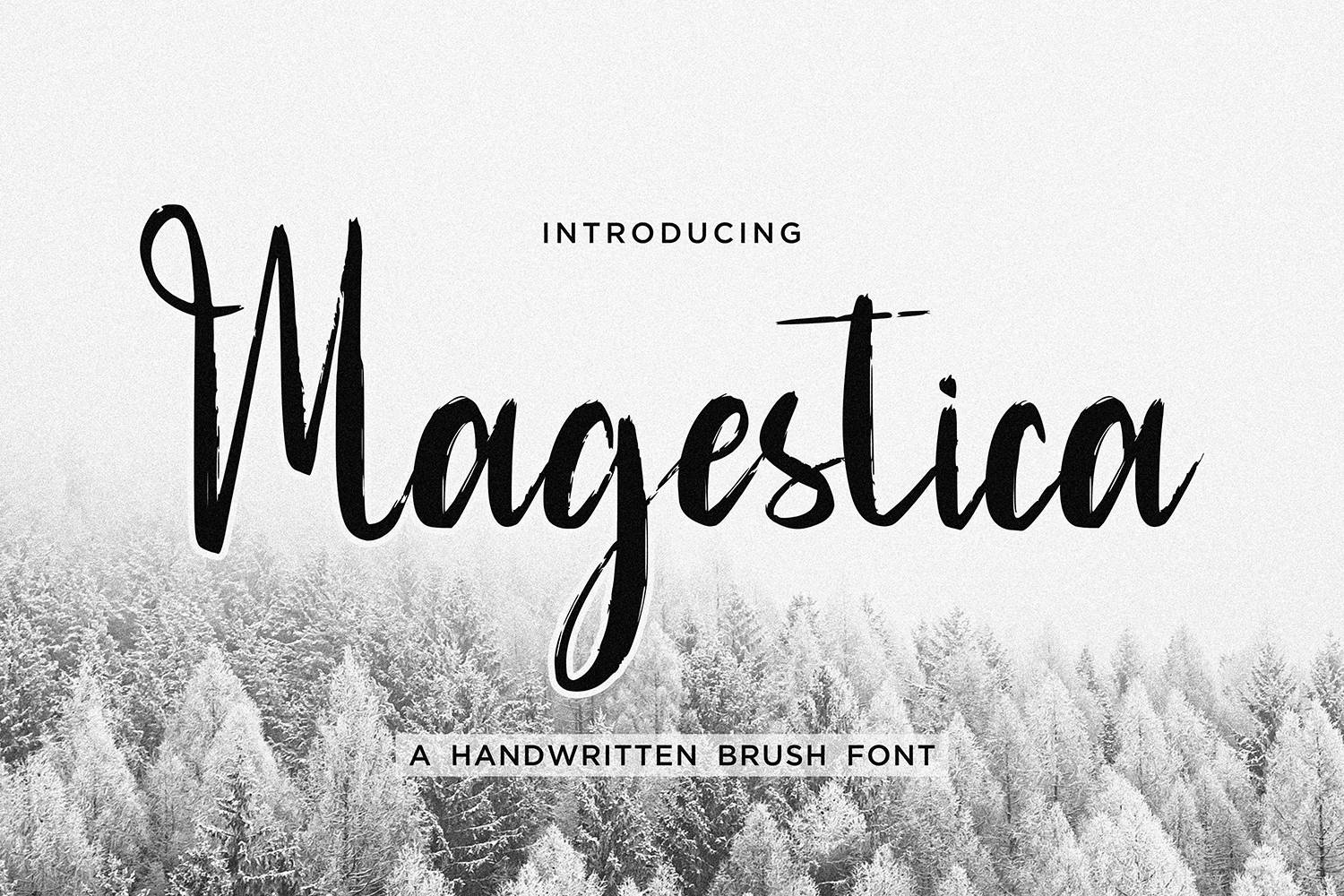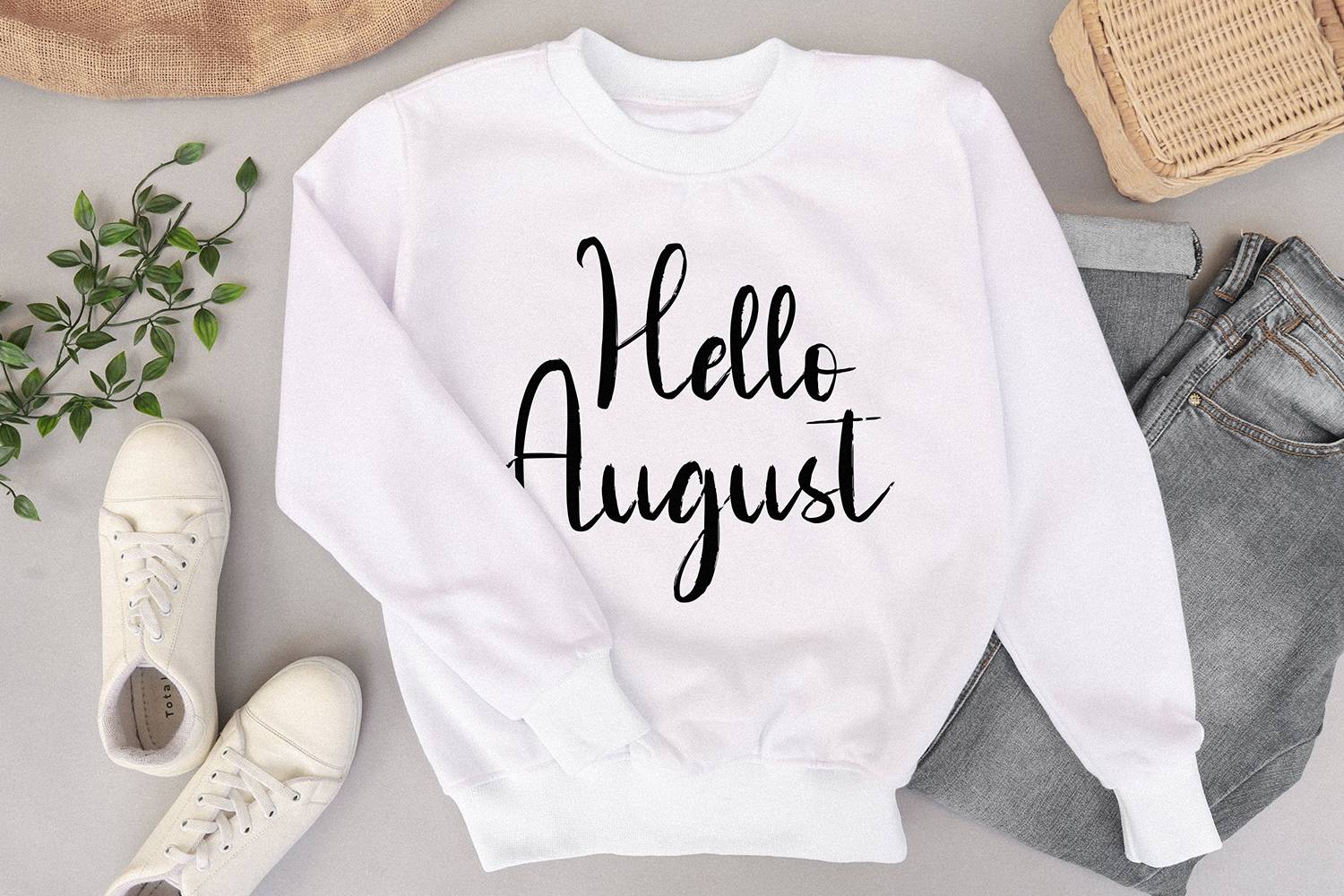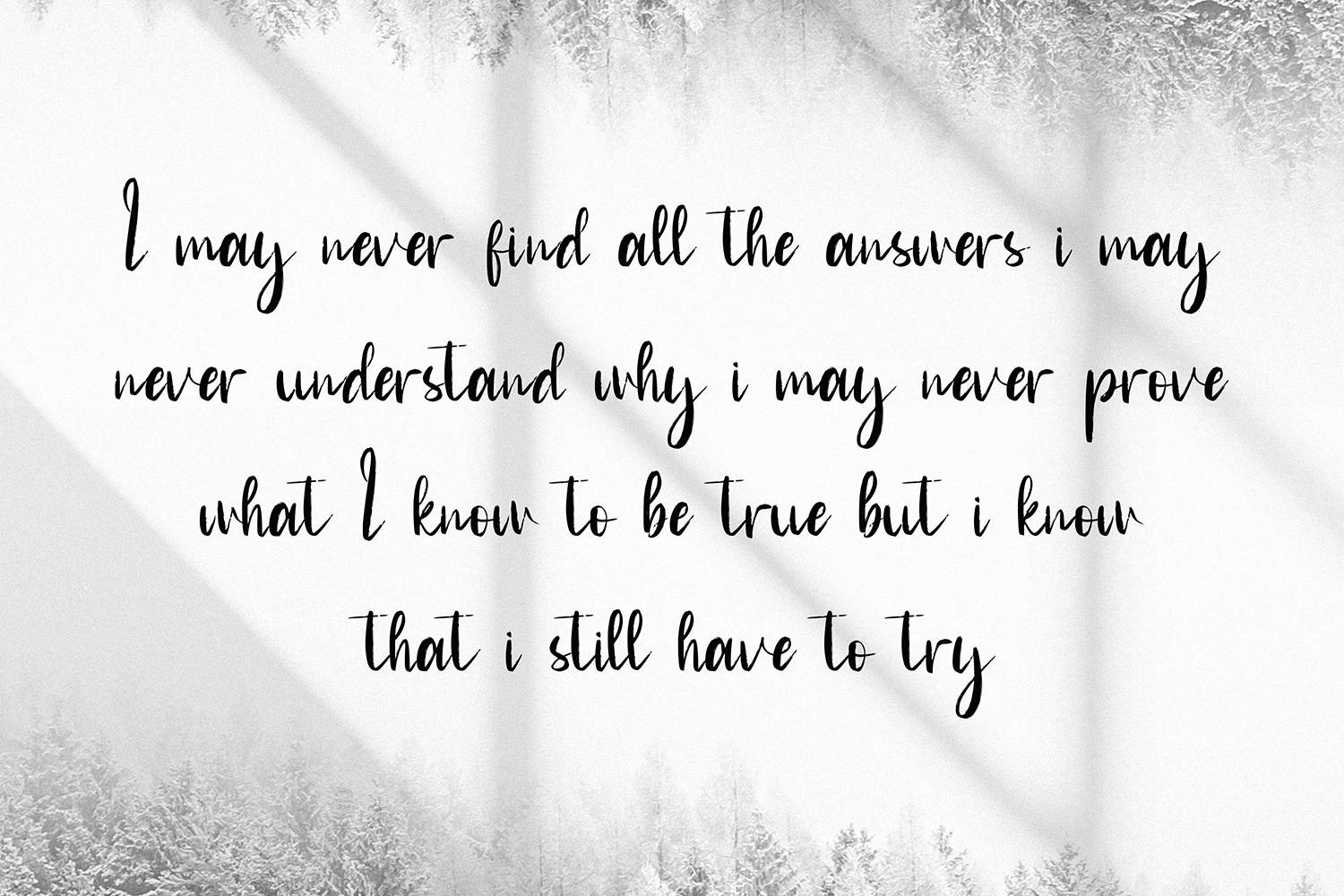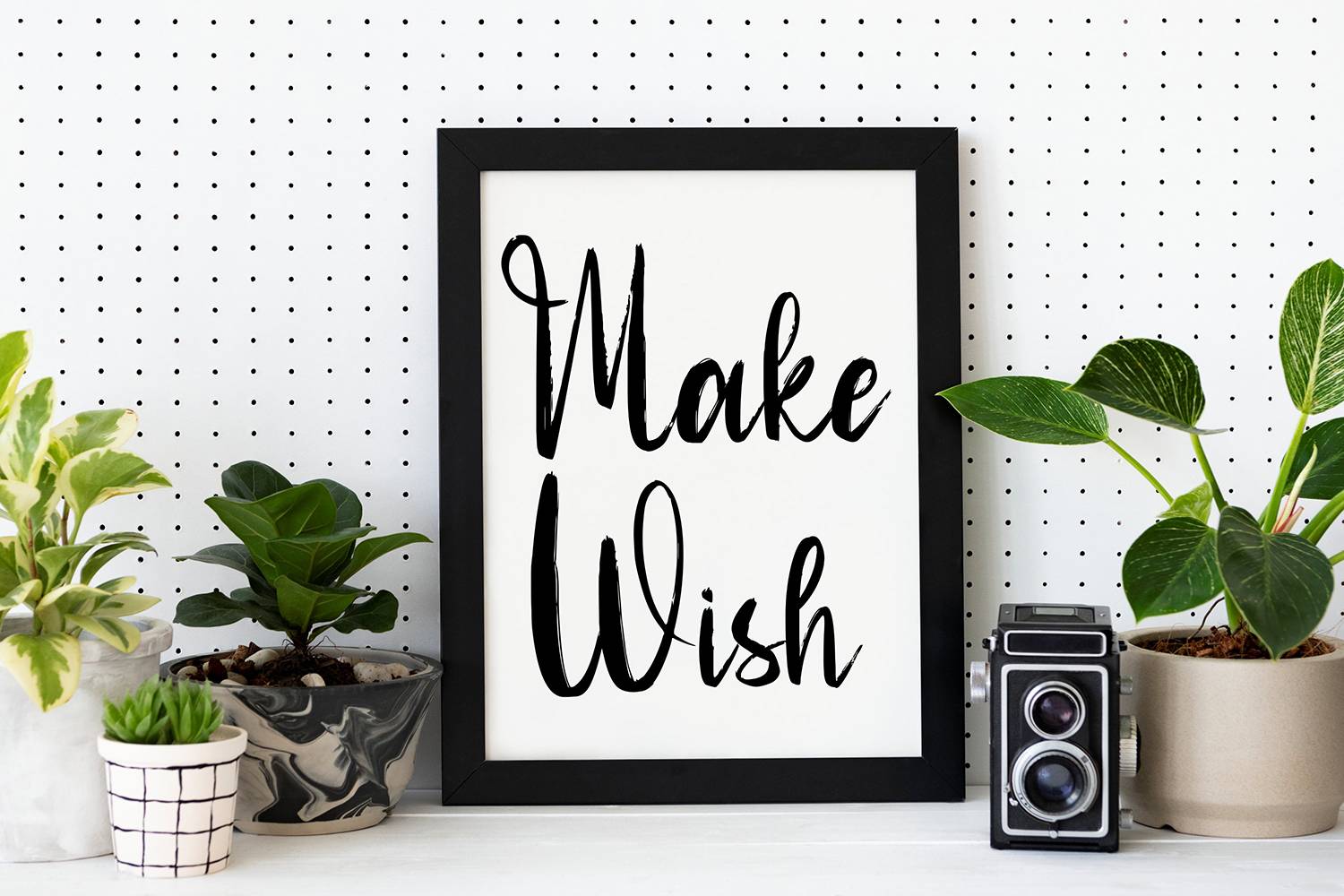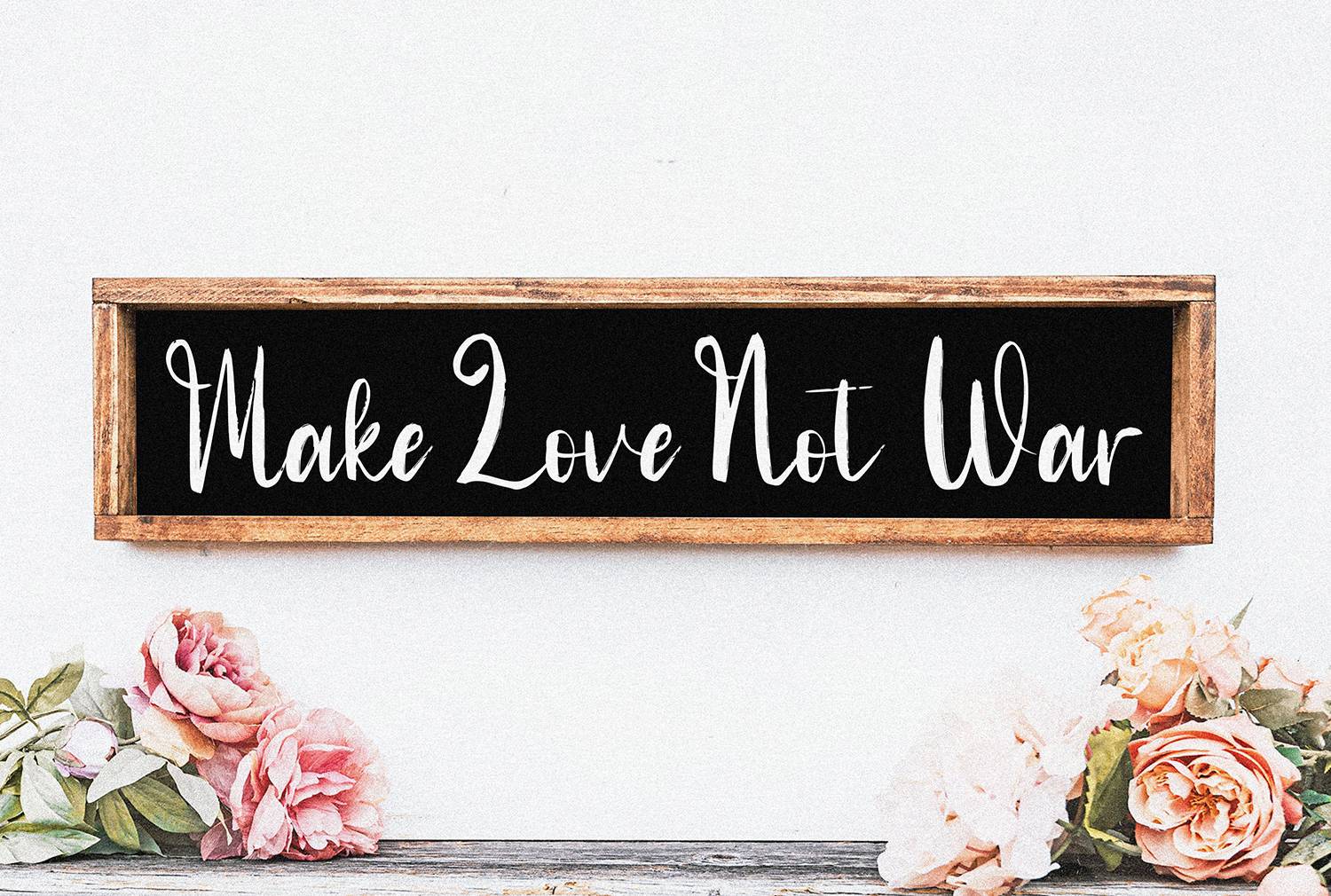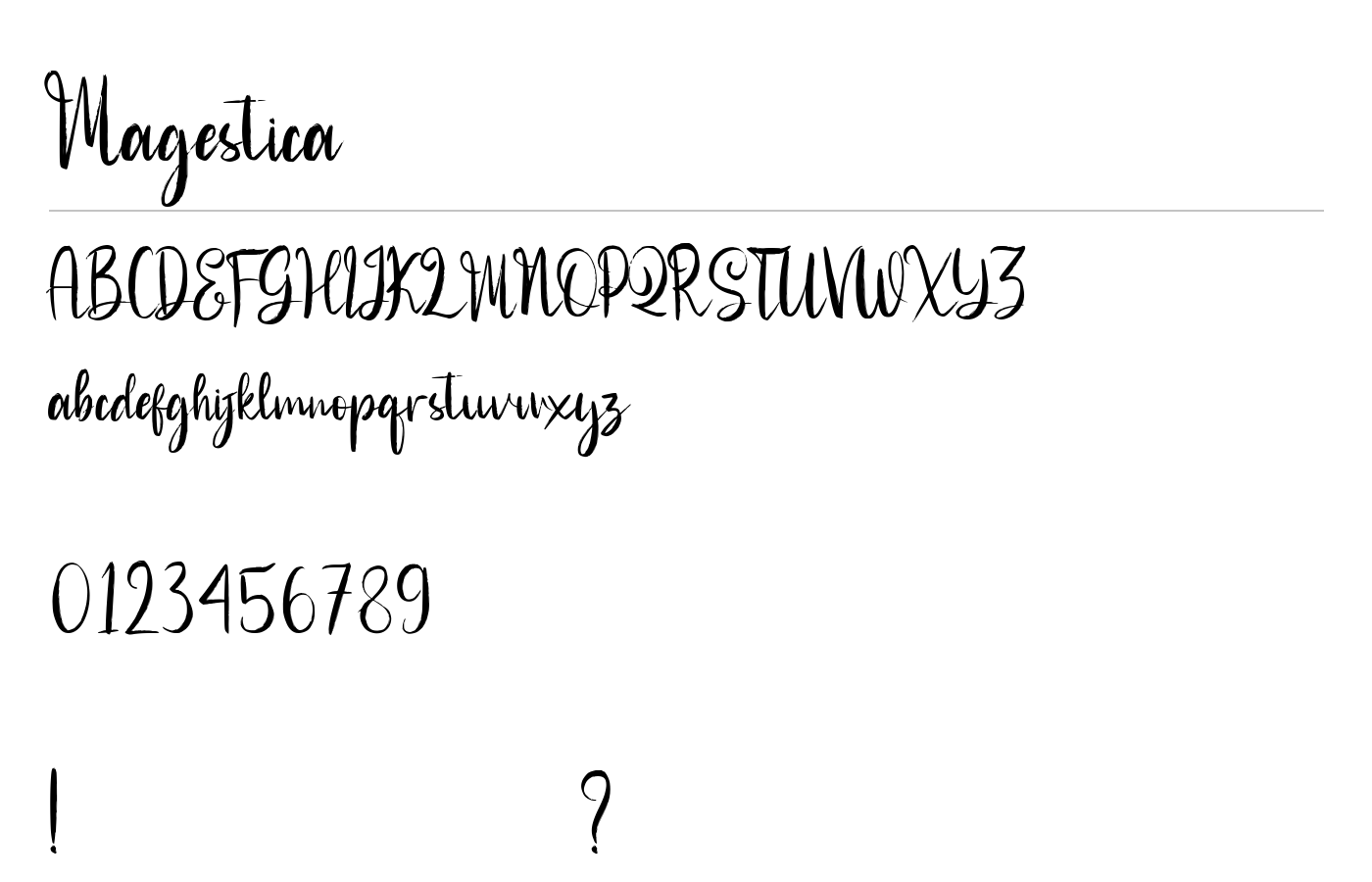
Magestica is a stylish handwritten script font characterized by its elegant, flowing strokes and natural, calligraphic feel. With its tall x-height, slender letterforms, and slightly irregular lines, it conveys a sense of creativity and personal touch, making it perfect for invitations, branding, and decorative headlines. This font works beautifully in projects that seek a charming, artistic vibe with a modern yet handcrafted appeal.
Magestica Font
About Magestica Font
| Font family | Magestica Font |
| Release date | 2022-09-12 |
| Designer | Bagus Panji Asmoro |